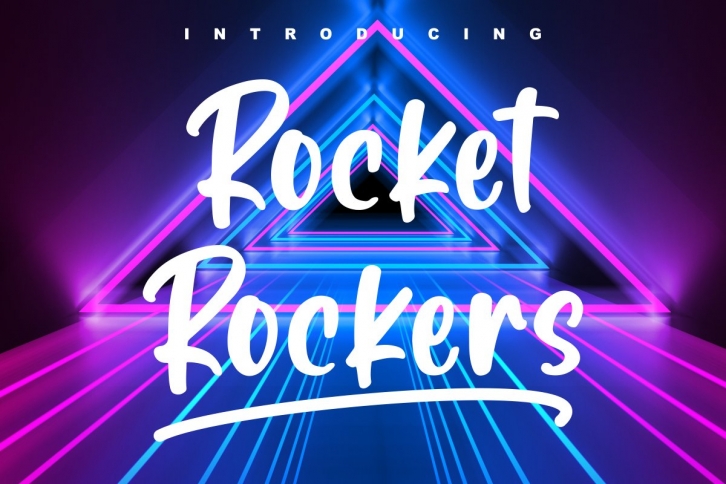
Introducing
Rocket rockers - Display Font
Rocket rockers is a fresh display font, this font Is perfect for logos, invitations, stationery, wedding designs, social media posts, advertisements, product packaging, product designs, label, photography, watermark, special events, or anything.
Rocket rockers come with a full set of uppercase and lowercase letters, multilingual symbols, numerals, punctuation.